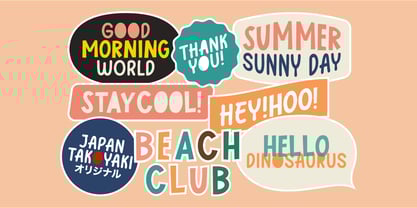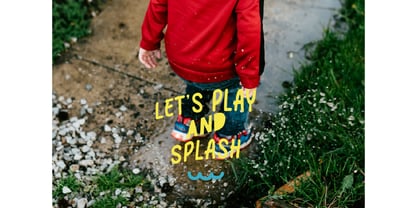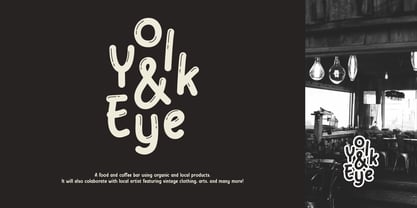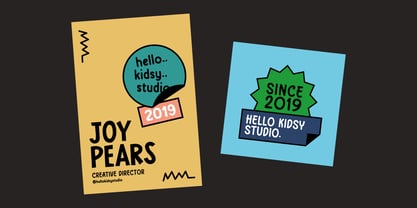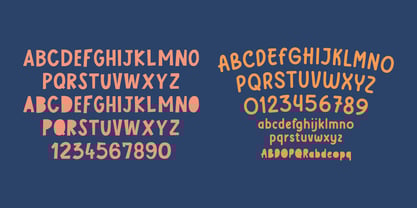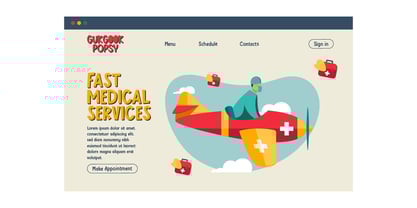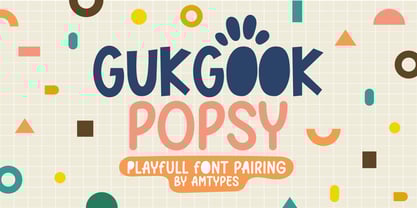
Gukgook Popsy
by Angga Mahardika
The Gukgook Popsy Font Family was designed by Angga Mahardika and published by Angga Mahardika. Gukgook Popsy contains 2 styles and family package options. More about this family
Gukgook Popsy is a playful font pairing, one of font is all caps cutout-style font and other font is uppercase and lowercase letters have filled letters. Pick and choose which letters you want filled to get the look you want and enjoy.